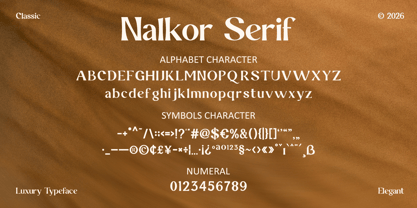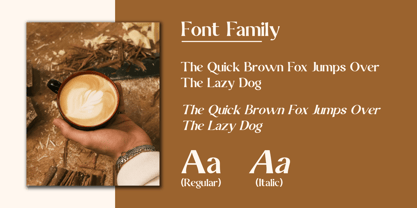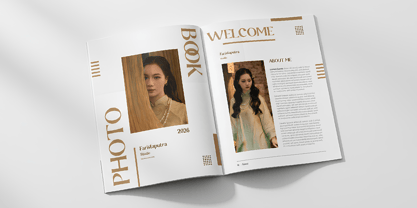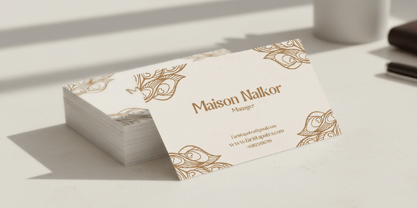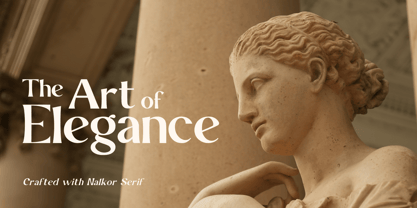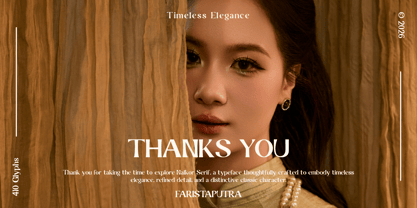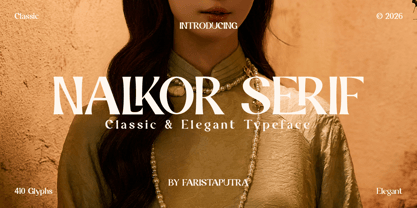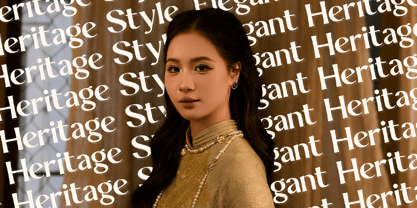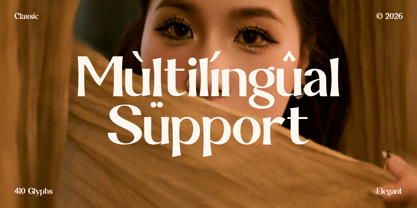
Nalkor Serif
by Faristaputra
The Nalkor Serif Font Family was designed by Frederik Aristaputra and published by Faristaputra. Nalkor Serif contains 2 styles and family package options. More about this family
Nalkor Serif is a classic serif typeface crafted to express refined luxury and timeless elegance. Featuring balanced proportions, smooth curves, and subtle contrast, it delivers a sophisticated and premium visual presence. The design blends classical inspiration with modern clarity, making it ideal for high-end branding, editorial layouts, fashion visuals, and elegant headlines. With its graceful details and polished structure, Nalkor Serif elevates any composition into a luxurious and professional statement.
Designers: Frederik Aristaputra
Foundry: Faristaputra